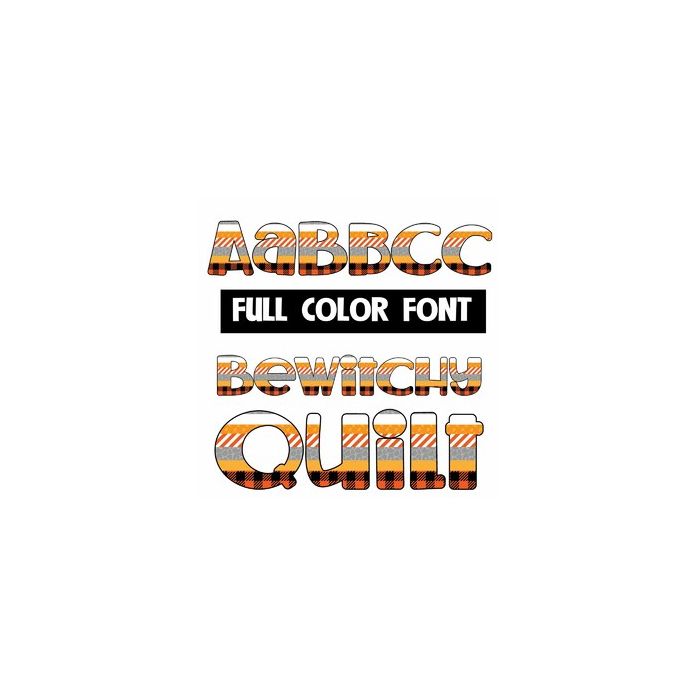
This full-color font features a mix of patterns in Halloween colors. This font works best for titles, displays, posters and more. Please note color fonts will show as black in non compatible programs. This font type is compatible with Silhouette Studio.